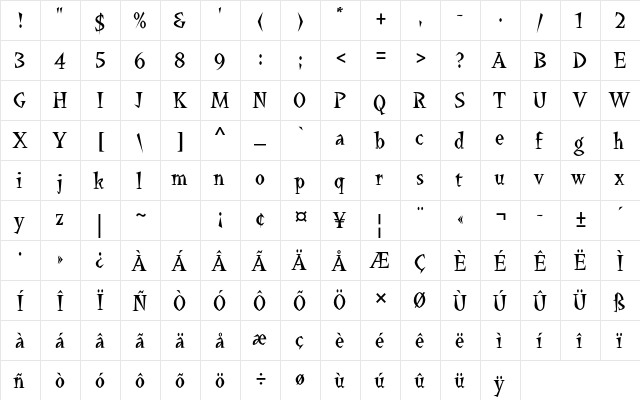
La Bamba Std Regular
| Designer | David Quay |
Design Context for La Bamba Std Typeface
La Bamba Std is a composed and adaptable typeface that performs quietly and consistently across a wide range of design contexts.